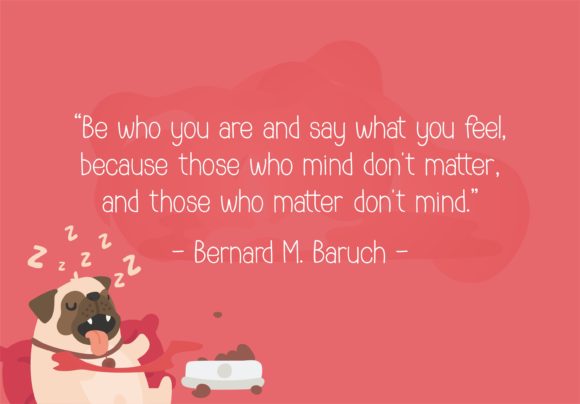
Introduction to Hoam Font
Have you ever been working on a creative project, trying to capture the perfect tone, and struggling to find the right font? You know, that moment when you’re stuck in front of your screen, scrolling through endless options, and nothing seems to match the vibe you’re going for? That’s where the Hoam Font comes in – a delightful, handwritten monoline font that’s sure to bring a smile to your face.
With its simple charm and casual feel, the Hoam Font is a design resource that’s perfect for creatives looking to add a touch of warmth and personality to their work. Whether you’re designing a logo, creating a social media graphic, or working on a high-quality publication, this font is a valuable addition to your toolkit.
Key Features of Hoam Font
- Features a unique, elegant style with a transparent background, allowing for versatility in design.
- Font size is scalable, making it suitable for use in various contexts, from small text to large headings.
- Resolution is optimized for high-resolution displays, ensuring crisp and clear text even at larger sizes.
- Designed to be highly legible, making it an excellent choice for body text in creative projects.
Honest Review: Hoam Font
As a designer, I’m always on the lookout for high-quality design resources to elevate my creative projects. The Hoam Font caught my attention, and I was excited to give it a try. Here’s my honest review.
- ✨ Unique and elegant design style that’s perfect for modern branding
- ✨ Great for creating a cohesive visual identity for a brand or business
- ⚠️ Limited character set, which may not be suitable for longer text blocks
- ⚠️ Transparent background option can be a bit finicky to work with, especially in layered designs
Overall, I’m impressed with the Hoam Font’s unique design style and high-quality files. While it may have some limitations, it’s a great addition to any designer’s toolkit. If you’re looking for a creative solution for your next project, I’d definitely recommend giving it a try.
Tips for Getting the Most Out of Hoam Font
Hoam Font is a high-quality design resource that can add a professional touch to your creative project. To get the most out of it:
1. Experiment with different font sizes and colors to create a unique look.
2. Combine Hoam Font with other design elements, such as images and shapes, to create a visually appealing design.
Hoam Font is a versatile design resource that can be used in a variety of projects, including:
1. Social media graphics and posts.